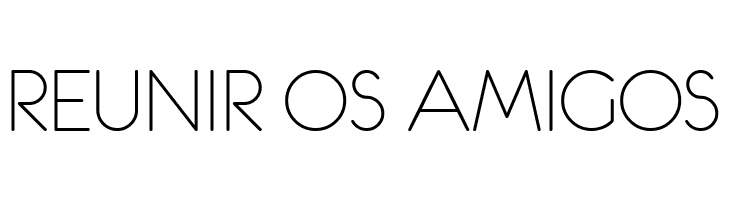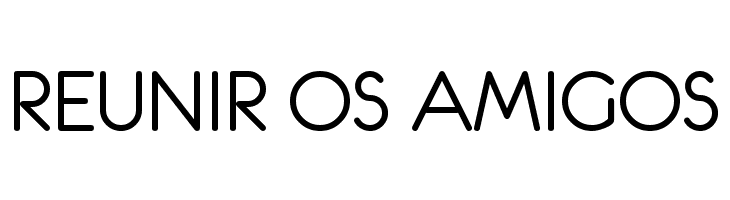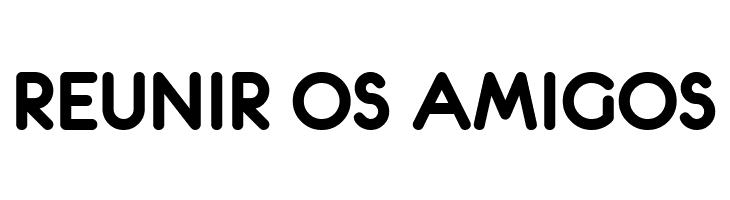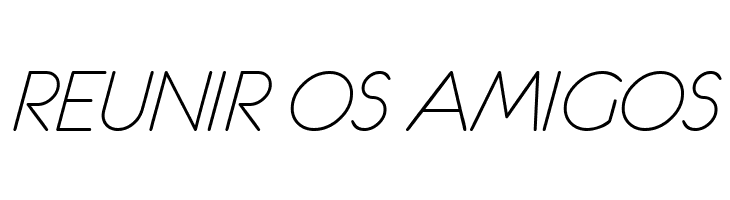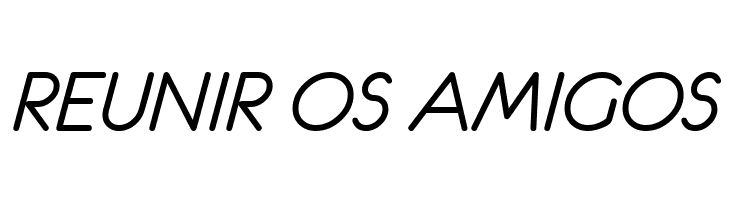
Content Creator Font
- Font: Content Creator
A modern, light sans-serif font with smooth, rounded edges and low contrast.
A modern, rounded sans-serif font with a clean and friendly design.
A bold, rounded font with smooth curves and a modern, friendly appearance.
A sleek, modern, light italic font with elegant curves and minimal contrast.
A sleek, italicized font with smooth curves and a modern aesthetic.
Popular choices include eurofurence light, eurofurence regular, eurofurence bold, eurofurence light italic and eurofurence italic — fonts known for their balance between modern and timeless. They look great on web pages, social content, and packaging, bringing a clean yet expressive feel.